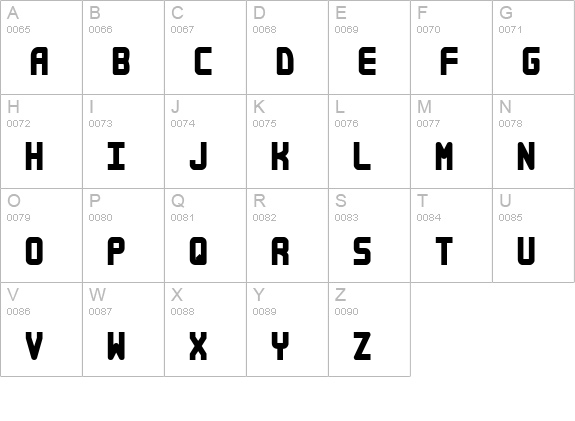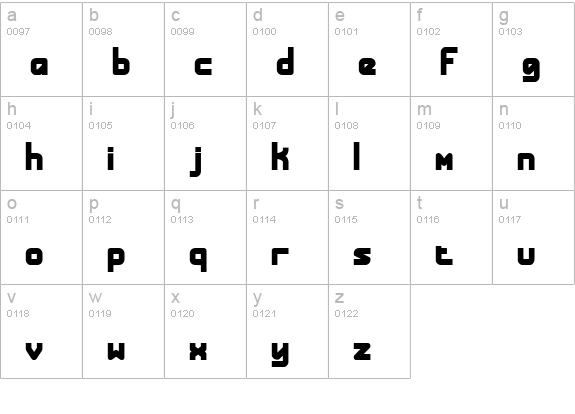
Bandwidth Bandless BRK font is a sleek and modern typeface that exudes sophistication and elegance. With its clean lines and contemporary design, this font is perfect for creating eye-catching headlines, logos, and branding materials. The absence of bands in the characters gives this font a unique and distinctive look that sets it apart from other typefaces. What makes Bandwidth Bandless BRK font even more appealing is that it is available for free download at FontsMarket.com. Whether you're a designer looking to add a fresh touch to your projects or a business owner searching for a stylish font for your marketing materials, Bandwidth Bandless BRK font is an excellent choice. Download it today and elevate your designs with this stunning and versatile typeface.